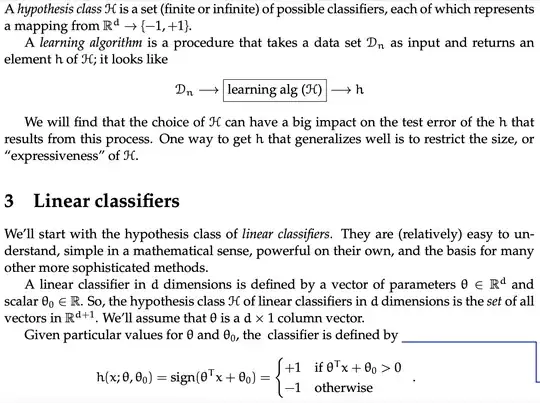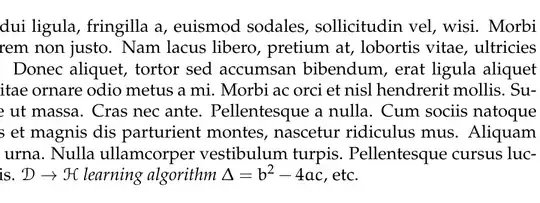
Anyone know what LaTeX font settings produce both written text AND mathematical text like in the following picture? I am trying to reproduce these notes in LaTeX with zero visual changes (especially to the way the math looks). Thanks!
1https://openlearninglibrary.mit.edu/assets/courseware/v1/9d904854b4ae0878cfdcedcdceabf937/asset-v1:MITx+6.036+1T2019+type@asset+block/notes_chapter_Linear_classifiers.pdf just uses default computer modern and ams fonts – David Carlisle Jan 21 '23 at 20:21
1Looks like Palatino text font and a mixture of math fonts, including Euler. – Mico Jan 21 '23 at 20:27
\documentclass{article}
\usepackage{mathpazo}
\usepackage{eulervm}
\usepackage{lipsum}
\begin{document}
\lipsum[2] $\mathcal{D}\to \mathcal{H}$ \textit{learning algorithm}
\end{document}